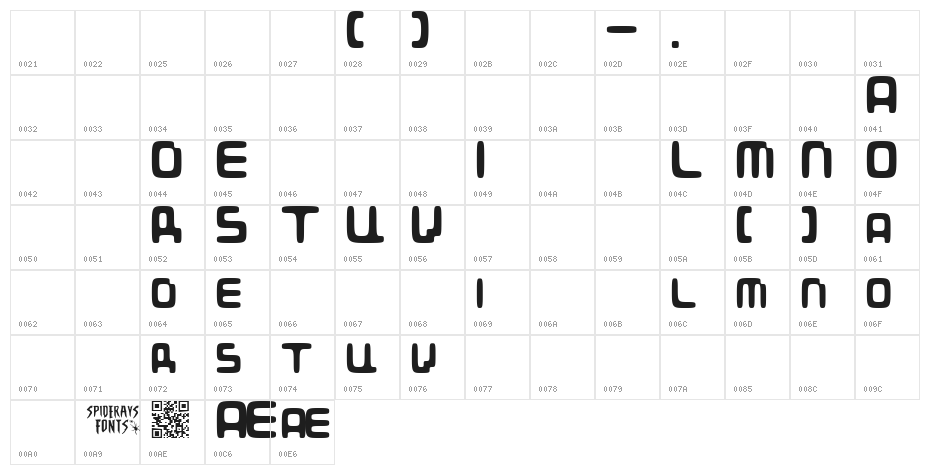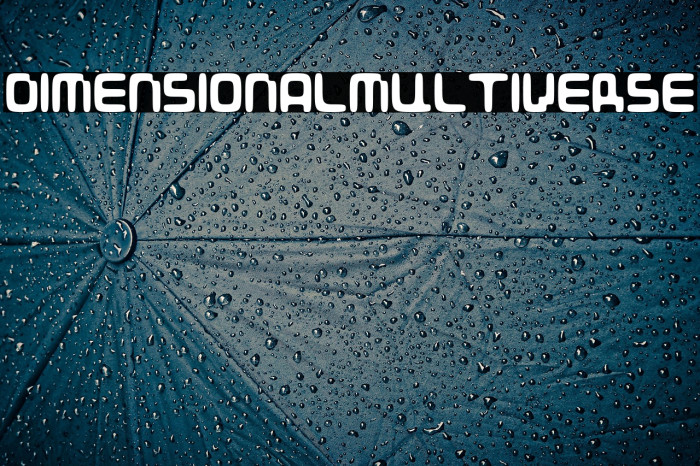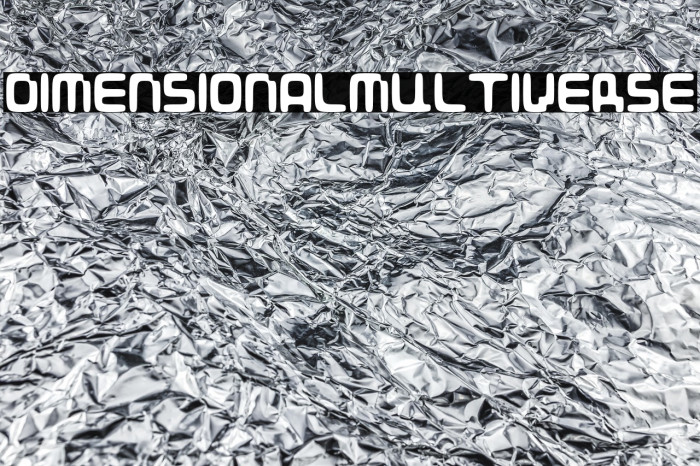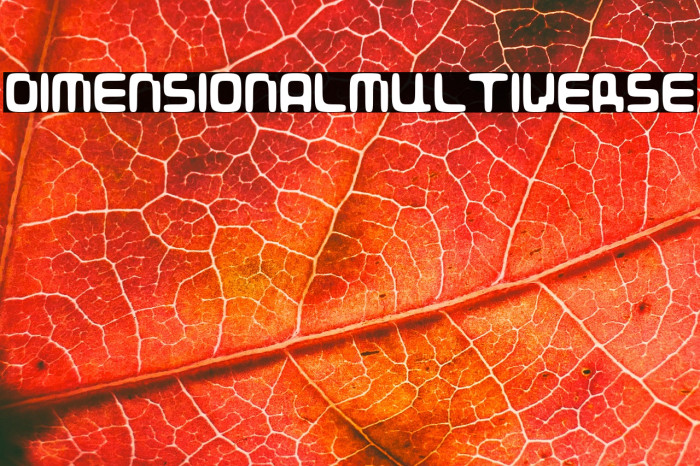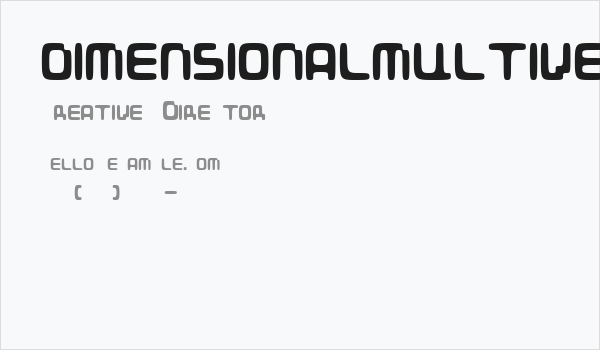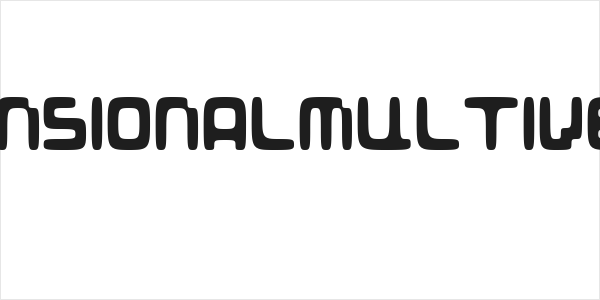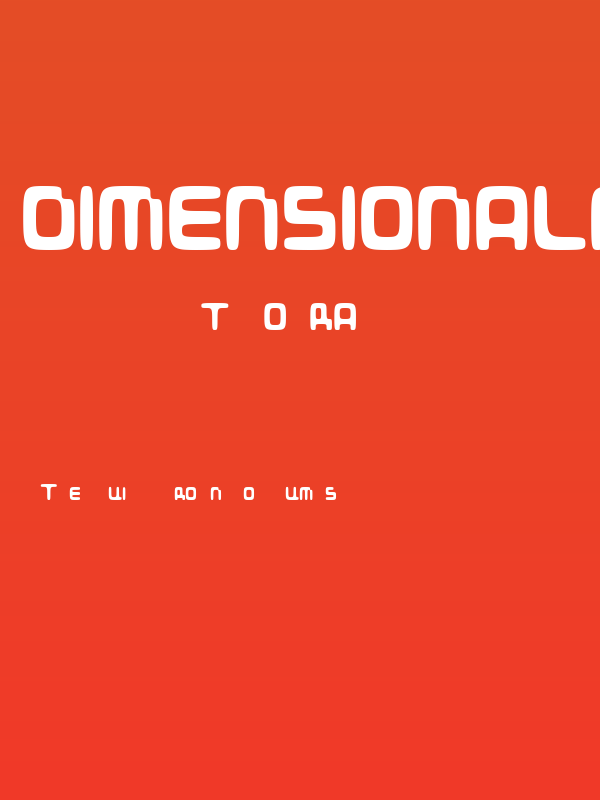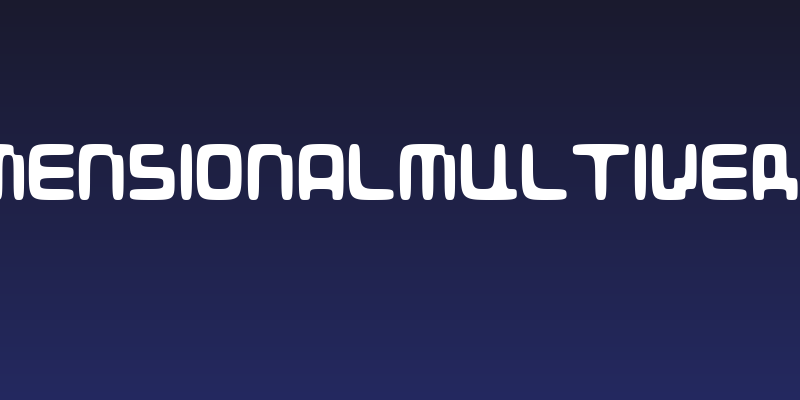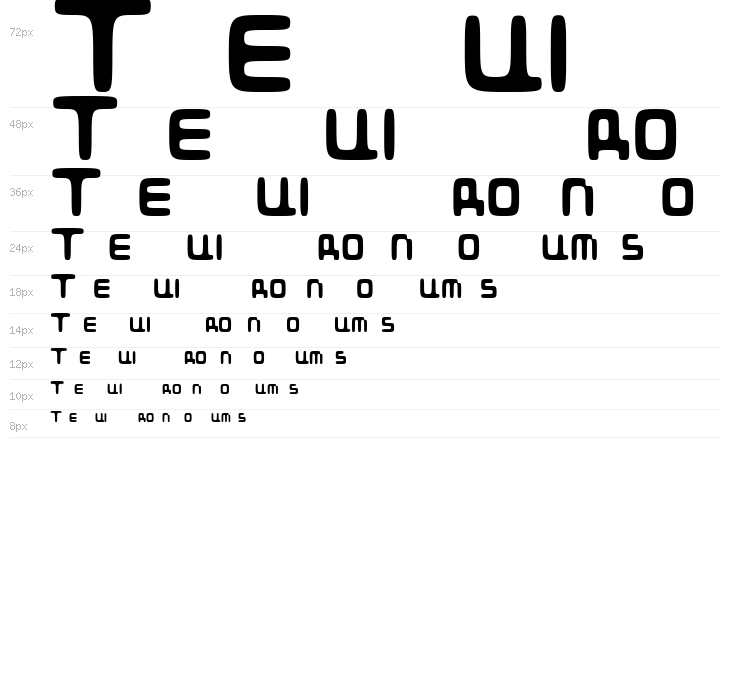
DIMENSIONALMULTIVERSE Font
DIMENSIONALMULTIVERSE Description
This font features a futuristic and geometric design, characterized by its rounded edges and uniform stroke width. The letters are bold and have a consistent height, giving them a modern and cohesive appearance. The style is reminiscent of digital or sci-fi themes, making it suitable for projects that require a contemporary and tech-oriented look. The characters are evenly spaced, providing a clean and organized visual flow. The absence of serifs and the uniformity in line thickness contribute to its sleek and streamlined aesthetic.